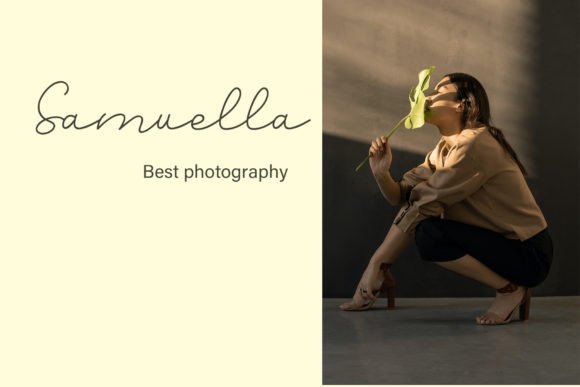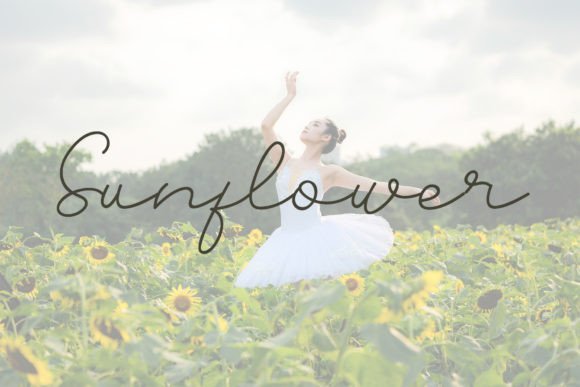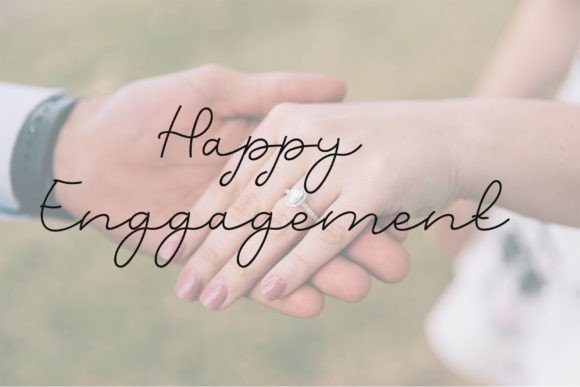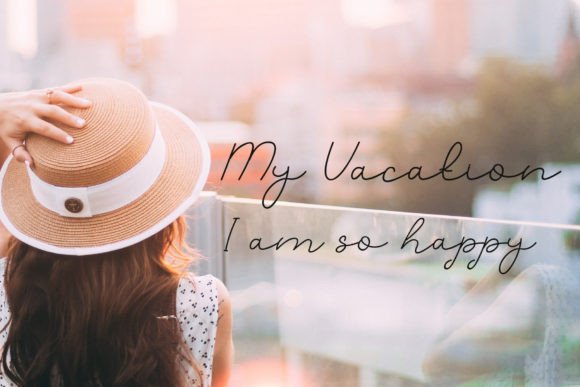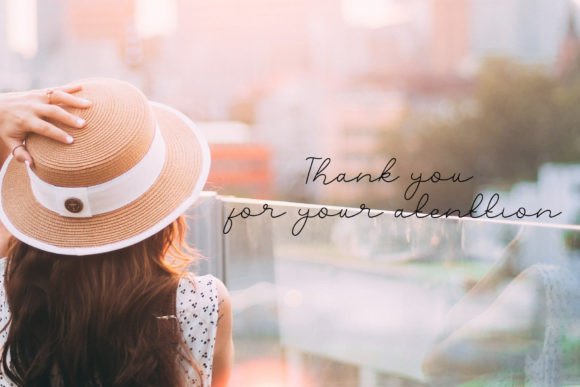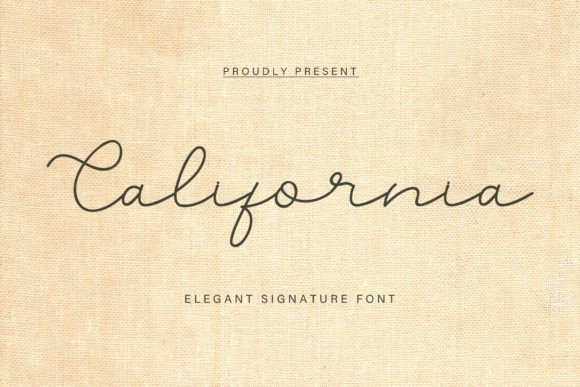
Introducing California Font: The Perfect Script Font for Casual and Creative Designs
Are you a designer or crafter looking for a unique and casual-looking script font to elevate your creative projects? Look no further than California Font! Crafted with great care to produce the expected results, this beautiful font is perfect for writing titles, invitations, letters, and various other types of informal products.
What Makes California Font Special?
California Font is a one-of-a-kind script font that boasts a distinctive and laid-back style, reminiscent of the Golden State’s relaxed and casual vibe. Its unique characteristics make it an excellent choice for designers and crafters who want to add a touch of personality to their work.
Here are some of the key features that make California Font stand out:
- Unique and casual-looking design: California Font has a distinctive script style that’s perfect for creating eye-catching titles, headings, and invitations.
- Crafted with great care: The font has been carefully designed to ensure that it produces high-quality results, with clean lines and precise letterforms.
- Versatile: California Font can be used for a wide range of creative projects, from informal products like invitations and letters to more formal designs like titles and headings.
Uses for California Font
California Font is an incredibly versatile font that can be used in a variety of creative projects. Here are some ideas to get you started:
- Invitations: Use California Font to create beautiful and eye-catching invitations for parties, weddings, and other special events.
- Titles and headings: Add a touch of personality to your titles and headings with California Font’s unique script style.
- Letters and correspondence: Use California Font to add a personal touch to your letters and correspondence.
- Informal products: California Font is perfect for creating informal products like posters, flyers, and brochures.
Why Designers and Crafters Love California Font
Designers and crafters love California Font for its unique and casual-looking design, which adds a touch of personality to any creative project. Here are some reasons why:
- Easily readable: California Font is designed to be easily readable, making it perfect for use in a variety of creative projects.
- High-quality results: The font produces high-quality results, with clean lines and precise letterforms.
- Flexibility: California Font can be used in a wide range of creative projects, from formal designs to informal products.
Tips for Using California Font
Here are some tips for using California Font in your creative projects:
- Use it sparingly: California Font is a bold and eye-catching font, so use it sparingly to avoid overwhelming your design.
- Pair it with other fonts: California Font pairs well with other fonts, so experiment with different combinations to find the perfect look for your design.
- Experiment with sizes and colors: California Font looks great in a variety of sizes and colors, so don’t be afraid to experiment and find the perfect look for your design.
California Font is a unique and casual-looking script font that’s perfect for designers and crafters who want to add a touch of personality to their creative projects. With its distinctive design, versatility, and high-quality results, California Font is an excellent choice for a wide range of creative projects. So why not give it a try and see the difference it can make in your designs?